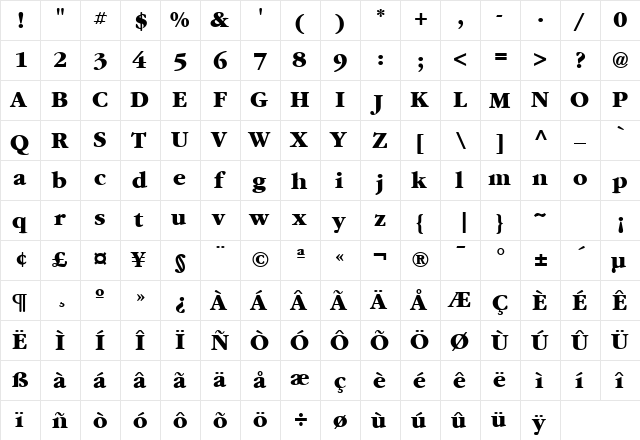
GarryMondrian7 ExtraBoldSH
Design Context for GarryMondrian7 Typeface
GarryMondrian7 is a composed and adaptable typeface that performs quietly and consistently across a wide range of design contexts. The heavy weight commands attention and anchors typographic hierarchies.